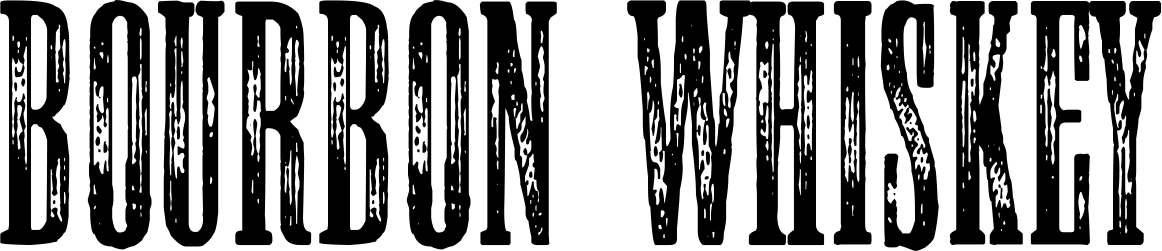
Bourbon Whiskey Font
If you are a fan of classic styles, you’ll be impressed by this retro font. Bourbon Whiskey with long and semi-bold letters can be used for posters, movies, magazines, and so forth. By the way, this case doesn’t support lowercase letters. Click on the download button and get ready to inspire your clients. Want more barber fonts? Browse our library.